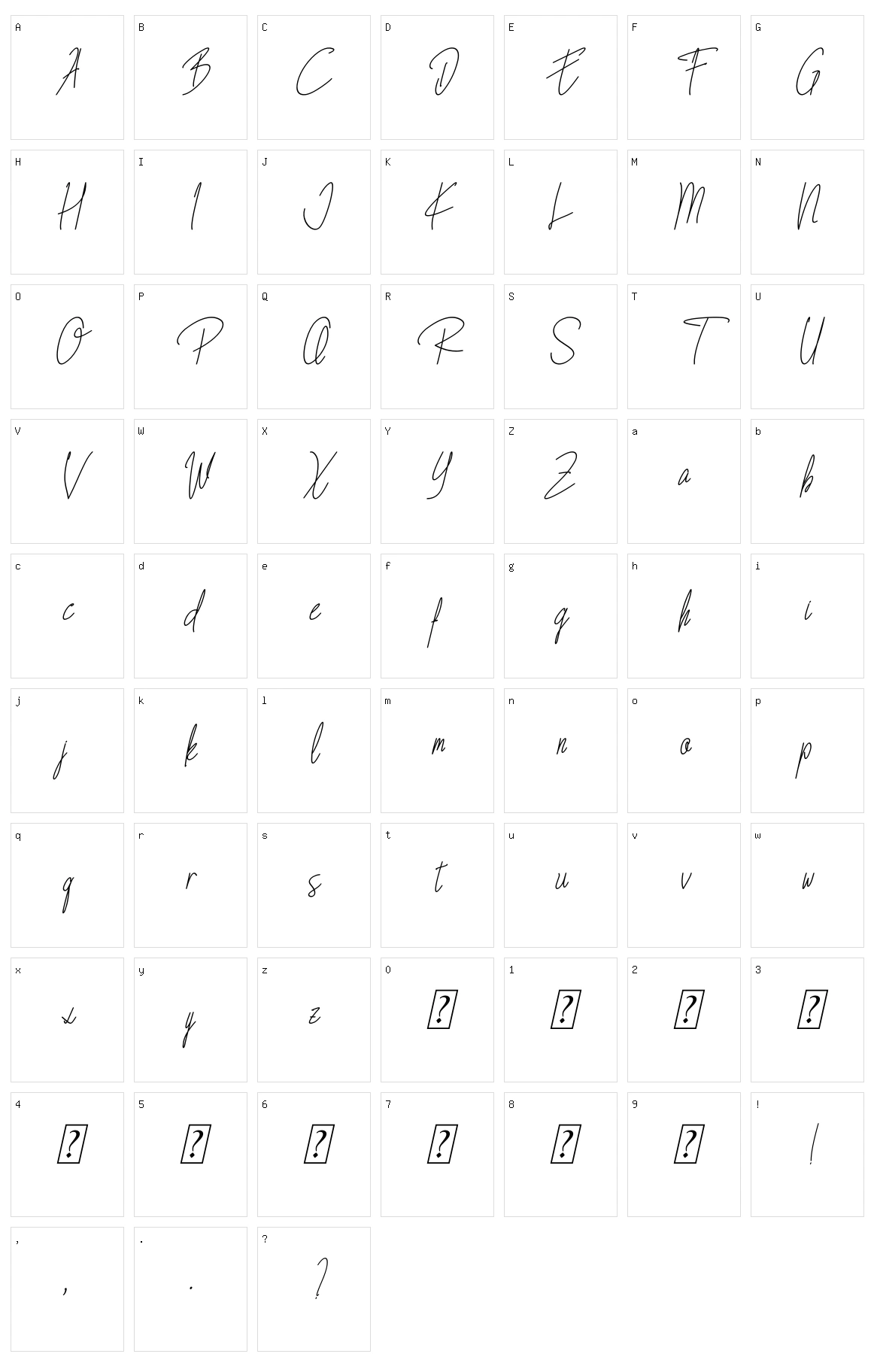
The free font Blista Rade is carefully designed by Marchtwentype, showcasing a thoughtful balance of creativity and usability and falls under the Script font style. When you download the ZIP file, it contains only 29.67 KB of font files, making it lightweight and quick to download. Please review the license details below to understand permitted usage and distribution rights. If license information is not available, we recommend using this font for personal projects only or contacting the author directly for commercial usage permissions.